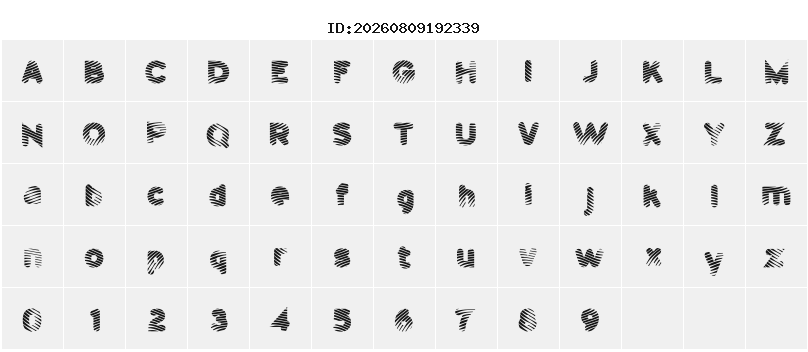
• Font Name: Pants Patrol
• Full Font Name: Pants Patrol
About Pants Patrol.ttf
Pants Patrol.ttf is a modern, elegant sans-serif font designed for ultimate readability and visual harmony. Perfect for branding, headlines, web design, and print materials.